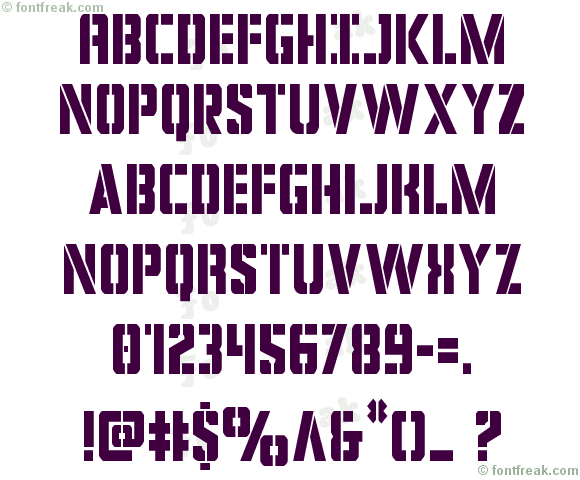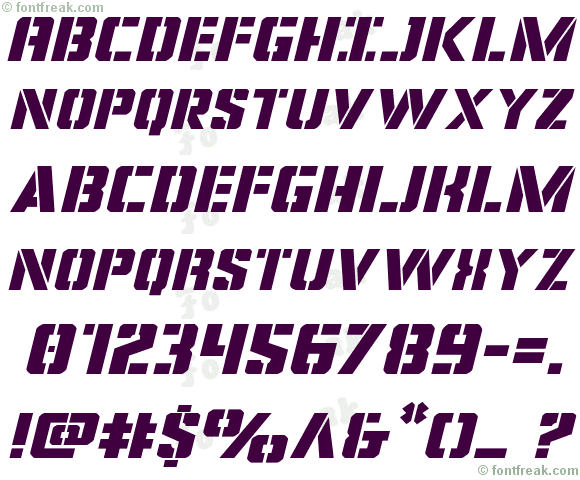
Covert Ops Expanded
Covert Ops Expanded, designed by Daniel Zadorozny, is a striking display font that falls within the decorative category. Released in 2012 under a freeware license, this typeface captures attention with its bold, robust appearance. The font features a substantial stroke weight, lending it a commanding presence that is perfect for various creative applications. The expanded letterforms provide ample spacing, ensuring that each character stands out, while the outline and italic styles add versatility to its use.
This font is ideal for a range of use cases. It shines in movie posters, where its dramatic flair can evoke the thrilling essence of action and adventure. Additionally, Covert Ops Expanded is perfect for branding materials such as logos and advertising campaigns, helping businesses convey a strong, modern identity. It can also enhance restaurant menus, giving them a unique touch that draws diners' eyes. Graphic designers will find this font particularly useful for creating promotional materials, ensuring that their work stands out in a crowded marketplace.
The target audience for Covert Ops Expanded includes graphic designers, small business owners, and content creators who seek a powerful typeface to enhance their projects. Its bold, adventurous style resonates well with those looking to make a statement, whether in print or digital mediums.
What sets Covert Ops Expanded apart is its unique blend of strength and style. The combination of its expanded forms and sleek outlines makes it a versatile choice that can adapt to various design needs while maintaining a cohesive and impactful look. For those interested in incorporating this eye-catching typeface into their work, the Covert Ops Expanded font free download offers an excellent opportunity to elevate any design project.